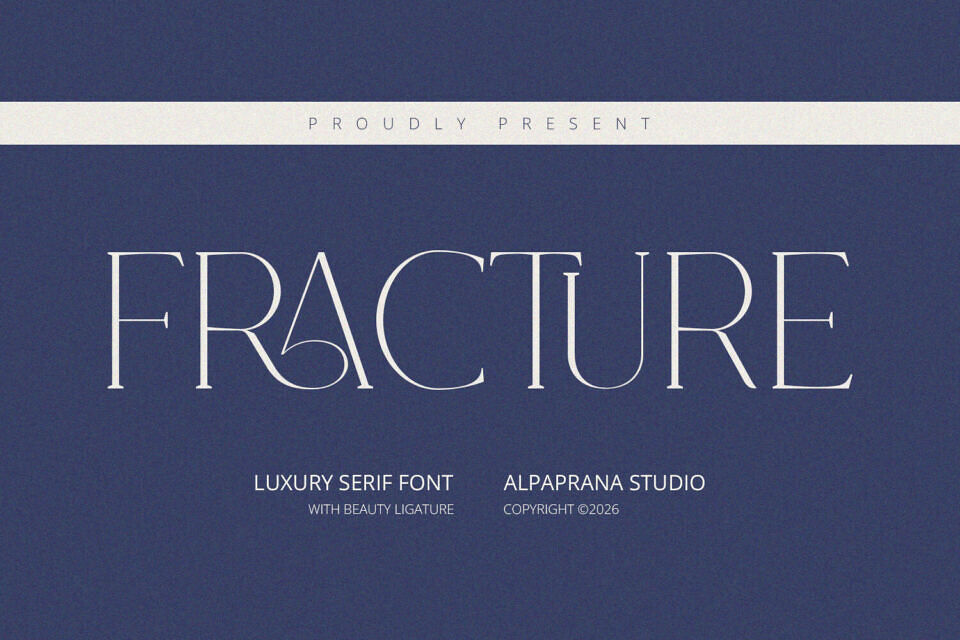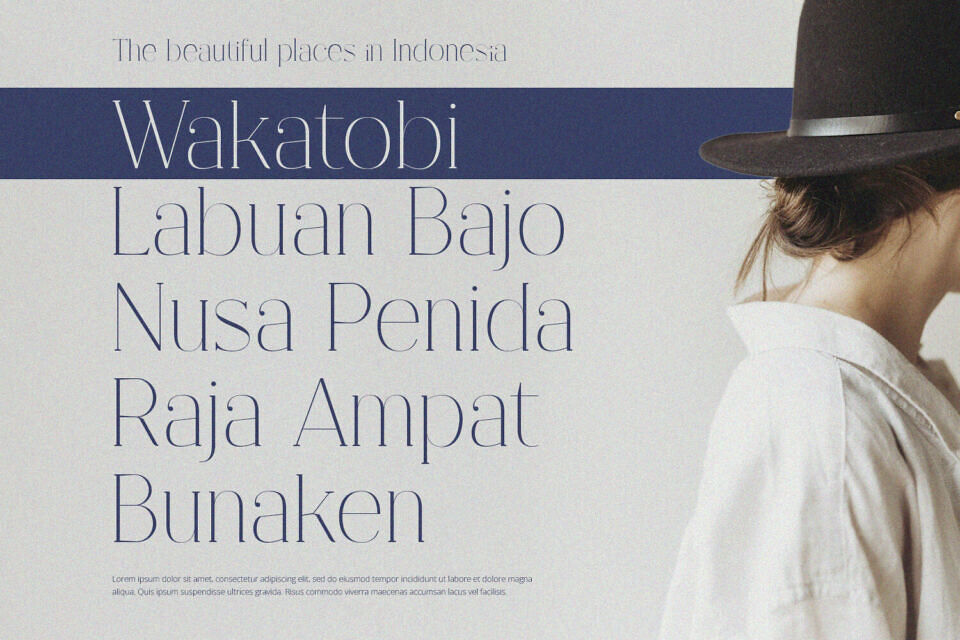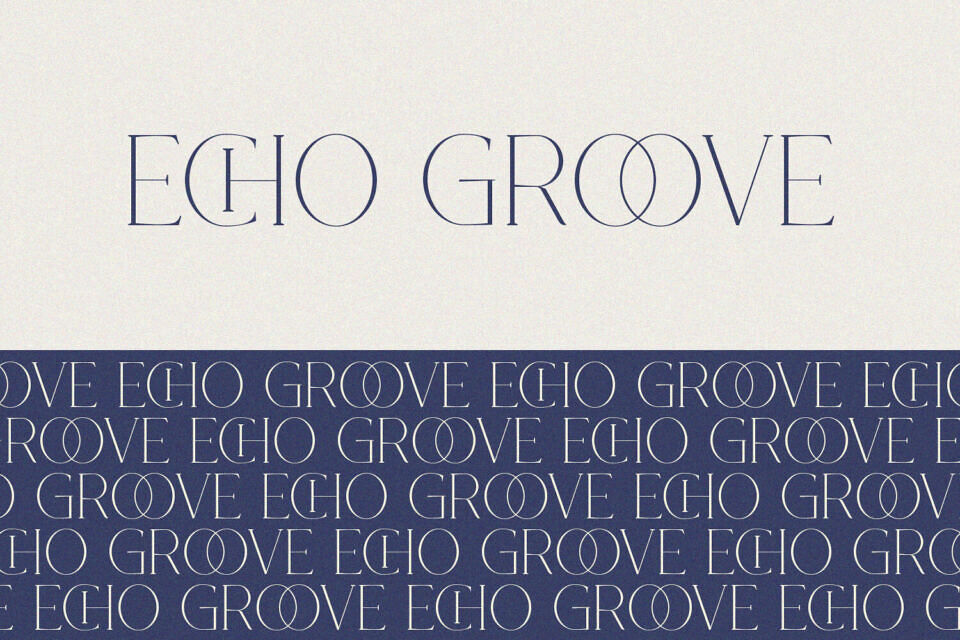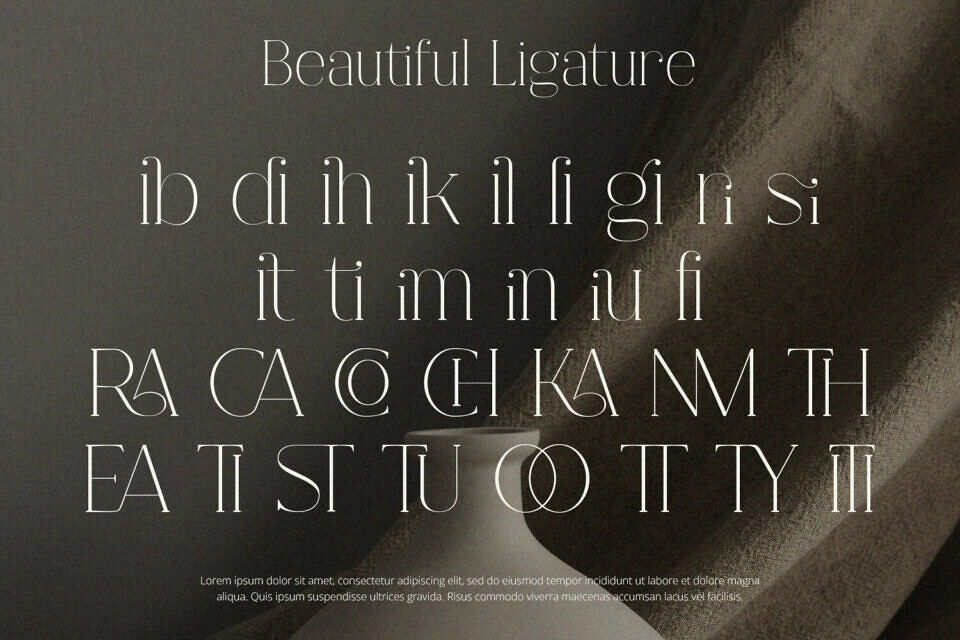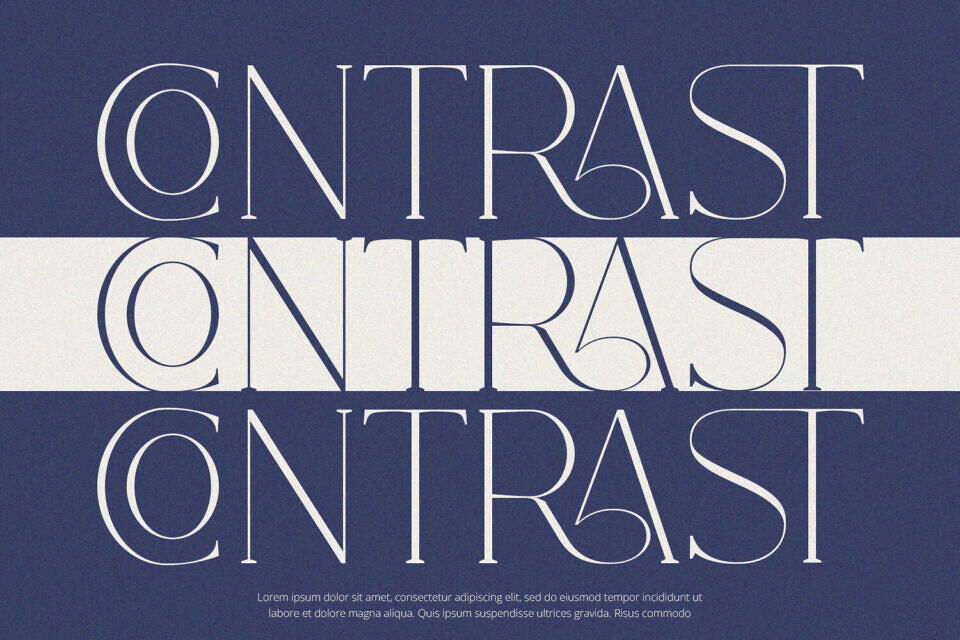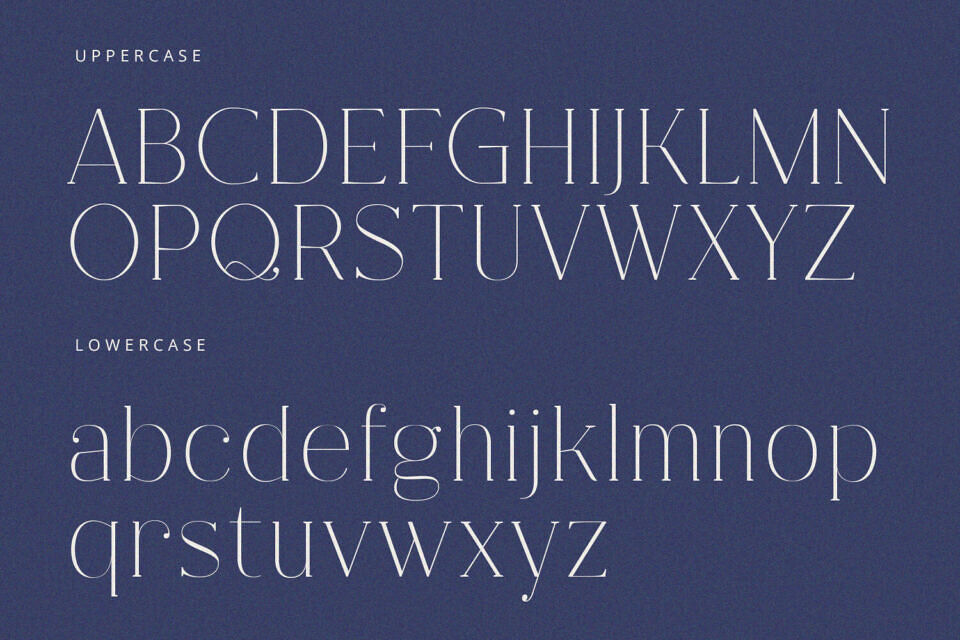
Fracture Font
Fracture is a modern serif font suitable for various design projects, including branding, logos, and packaging. It’s ideal for creating eye-catching visuals on clothing, posters, magazines, and book covers, as well as for photography and special events. This versatile font can be applied to a wide range of designs, making it a great choice for many creative projects.